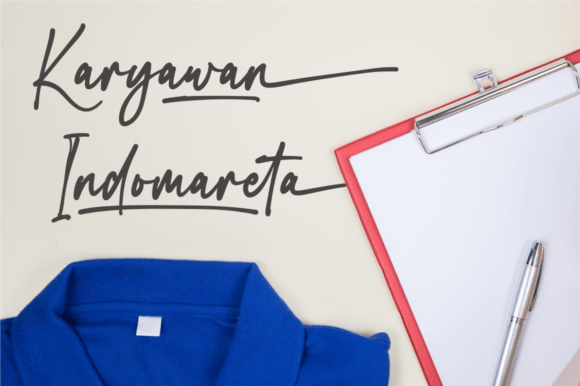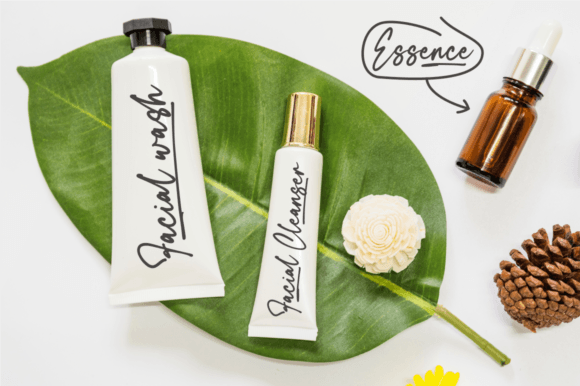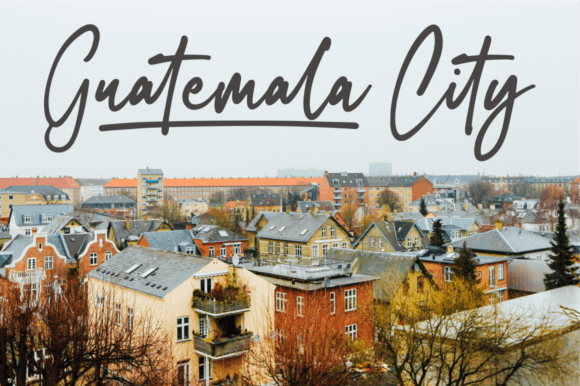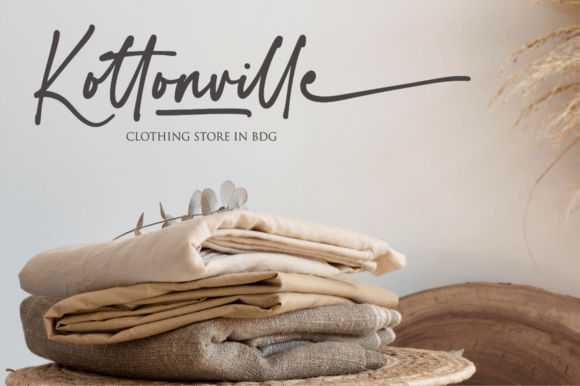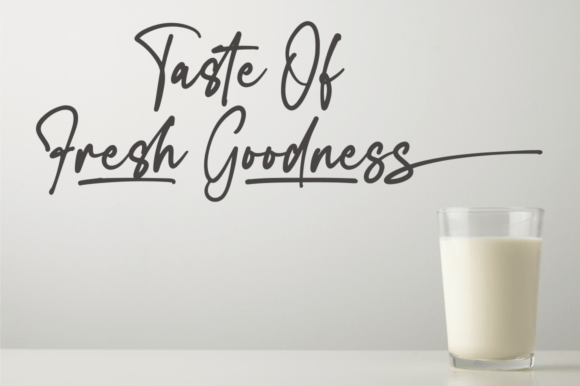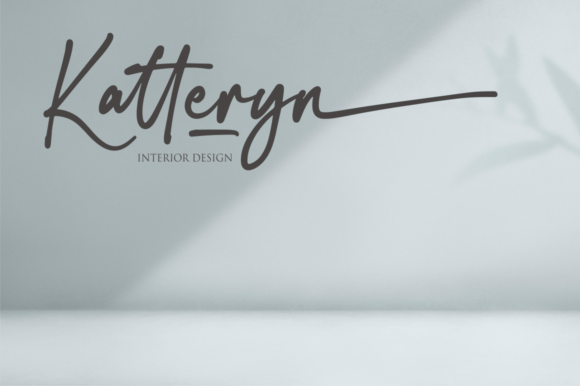
Cristiano Signature Font: Elevate Your Designs with Elegance
Are you tired of using the same old fonts in your designs? Look no further than the Cristiano Signature Font, a dazzling script font that is sure to take your creations to the next level. This font is meticulously crafted with attention to detail, making it a wonderful asset to your font library. Whether you’re working on a branding project, a wedding invitation, or a marketing campaign, Cristiano Signature Font is the perfect choice to add a touch of elegance and sophistication.
What Makes Cristiano Signature Font Stand Out?
Cristiano Signature Font is a highly detailed script font that boasts a unique and stylish design. Its neat and elegant appearance makes it perfect for a wide range of applications, from logos and headings to invitations and social media graphics. The font’s intricate details and swashes add a level of sophistication that will set your designs apart from the rest.
One of the standout features of Cristiano Signature Font is its PUA (Private Use Area) encoding. This means that you can access all glyphs and swashes with ease, giving you complete creative control over your designs. With PUA encoding, you can effortlessly navigate the font’s extensive character set, including ligatures, alternates, and ornaments. This feature makes it easy to customize your text and create unique, eye-catching designs.
Cristiano Signature Font is incredibly versatile, making it suitable for a wide range of design projects. Here are just a few ideas to get you started:
- Branding and Logos: Use Cristiano Signature Font to create a memorable and stylish logo that reflects your brand’s personality.
- Wedding Invitations: Add a touch of romance and elegance to your wedding invitations with this beautiful script font.
- Social Media Graphics: Elevate your social media presence with eye-catching graphics and quotes featuring Cristiano Signature Font.
- Marketing Materials: Use this font to create stunning brochures, flyers, and posters that showcase your products or services.
Why Choose Cristiano Signature Font?
With so many fonts available, why choose Cristiano Signature Font? Here are just a few reasons:
- Unique Design: Cristiano Signature Font boasts a distinctive and stylish design that will set your creations apart.
- Highly Versatile: This font is suitable for a wide range of design projects, from branding and logos to invitations and social media graphics.
- PUA Encoding: With PUA encoding, you can access all glyphs and swashes with ease, giving you complete creative control.
- Elegant and Sophisticated: Cristiano Signature Font adds a touch of elegance and sophistication to any design.
In conclusion, Cristiano Signature Font is a must-have for any designer or crafter looking to elevate their designs with elegance and sophistication. With its unique design, PUA encoding, and endless design possibilities, this font is sure to become a staple in your font library. Whether you’re working on a branding project, a wedding invitation, or a marketing campaign, Cristiano Signature Font is the perfect choice to add a touch of style and sophistication.